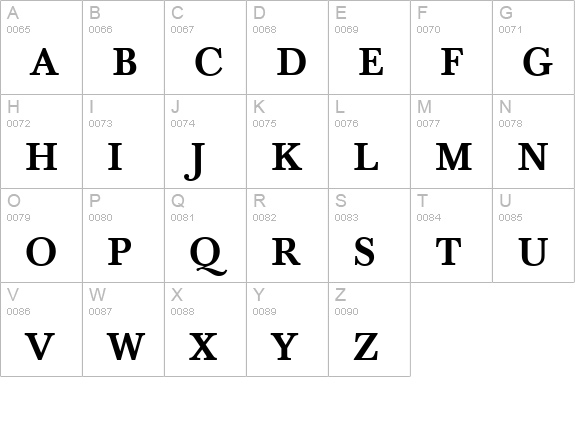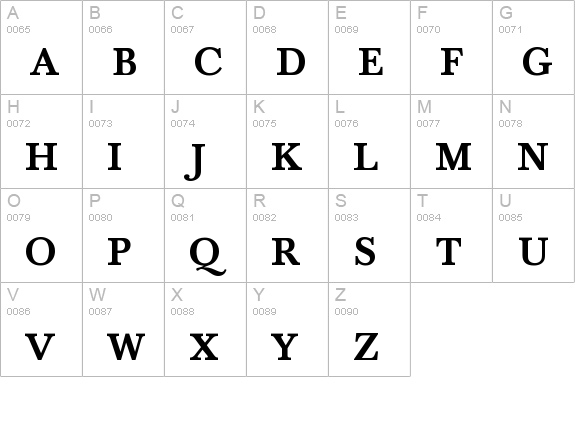
BaskervilleTMed Font Details
BaskervilleTMed font is a timeless and elegant typeface that exudes sophistication and class. Its subtle curves and clean lines make it perfect for a wide range of design projects, from invitations to branding materials. The font's medium weight strikes the ideal balance between readability and style, making it a versatile choice for both print and digital applications. The best part? BaskervilleTMed font is available for free download at FontsMarket.com. This means you can easily access this high-quality font without any cost, making it a valuable addition to your font library. Whether you're a designer looking to elevate your work or someone in need of a refined typeface for personal projects, BaskervilleTMed font is a fantastic option that won't break the bank. Download it today and experience the timeless beauty of this classic font.